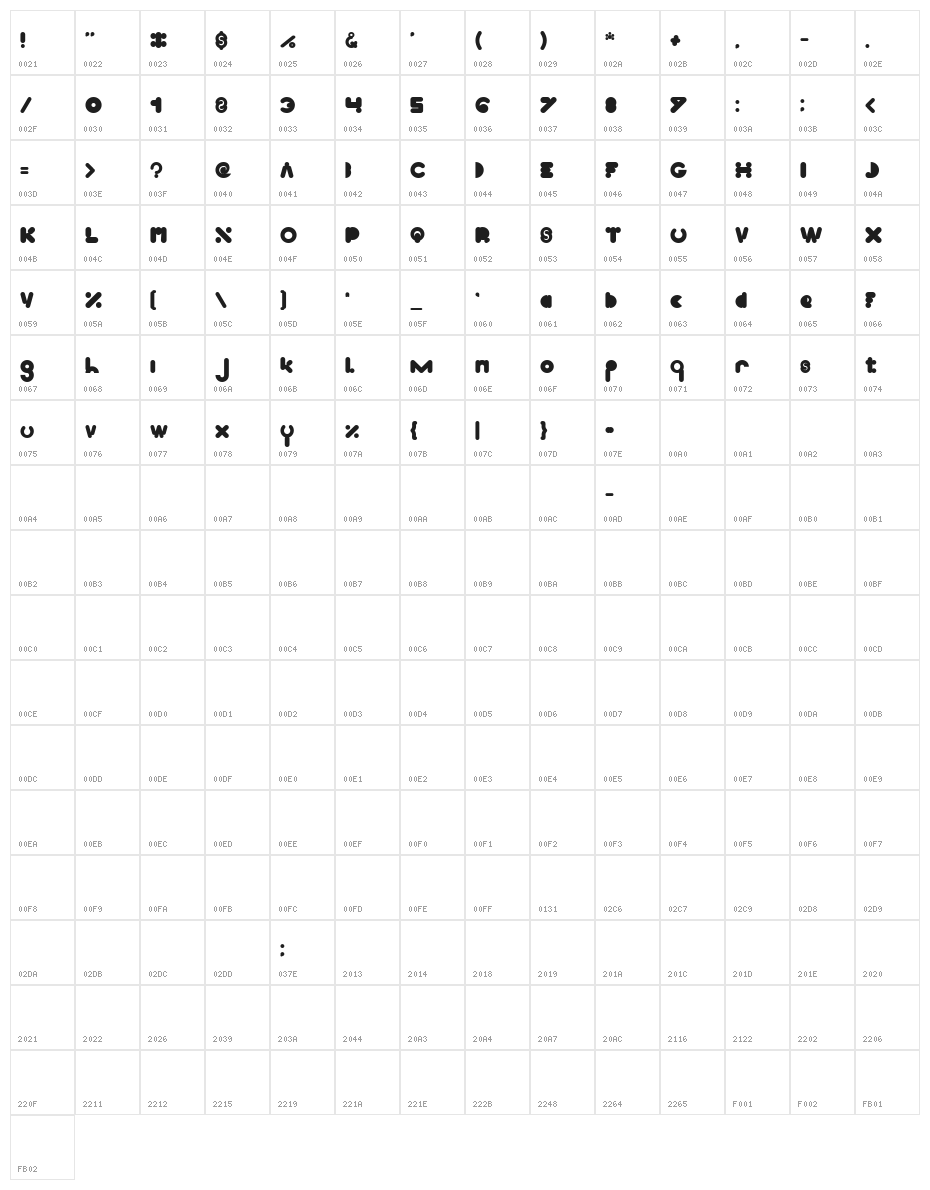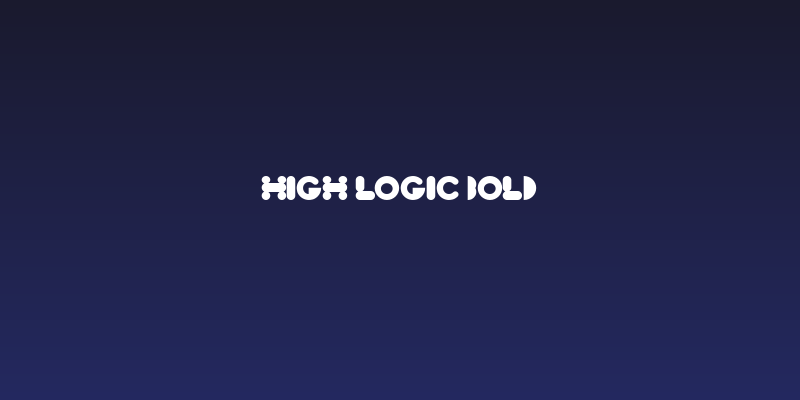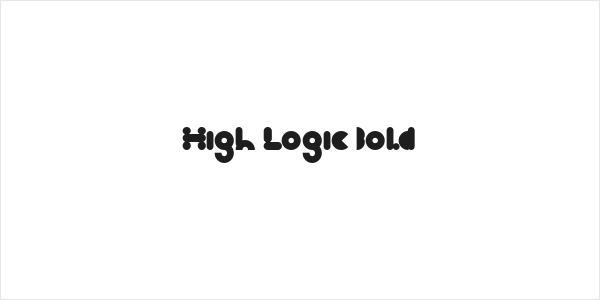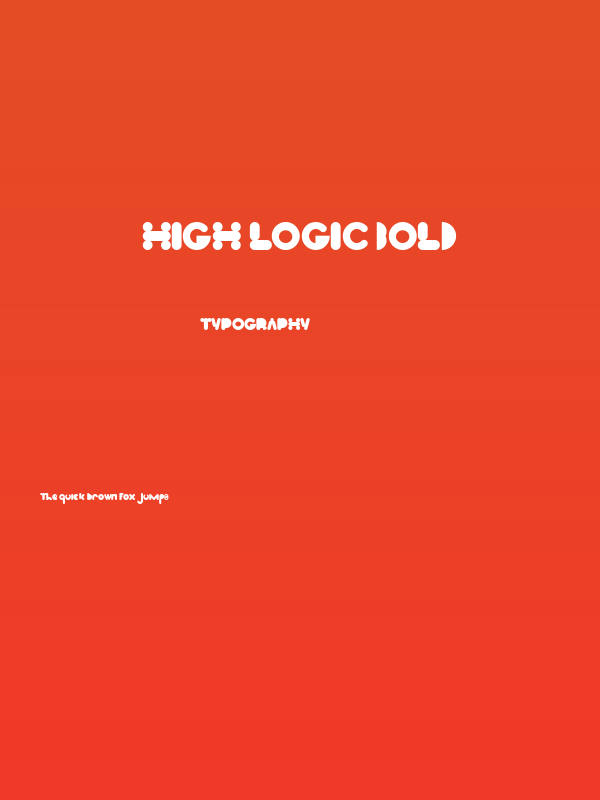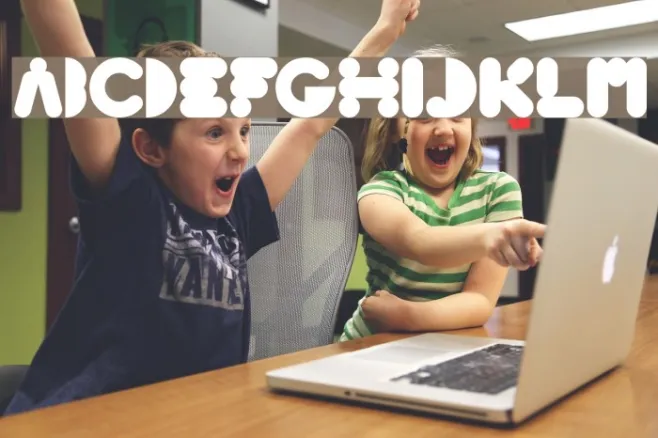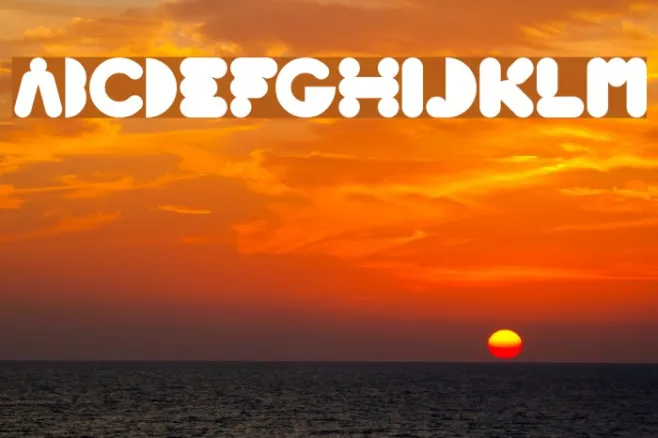
High Logic Bold Font
High Logic Bold Description
This font features a bold and playful design with rounded, bubble-like characters. The letters are thick and uniform, creating a strong visual impact. The style is characterized by its geometric shapes and consistent stroke width, giving it a modern and quirky appearance. The font includes both uppercase and lowercase letters, numbers, and a variety of special characters. Its unique style makes it stand out, with each character having a distinct, almost cartoonish quality. The overall look is both fun and approachable, making it suitable for creative and informal applications.
HIGH-LOGIC-BOLD UPPERCASE
HIGH-LOGIC-BOLD LOWERCASE
HIGH-LOGIC-BOLD OTHER CHARS
| Proposed Projects | Ideal for children's books, playful branding, posters, and creative digital content. |